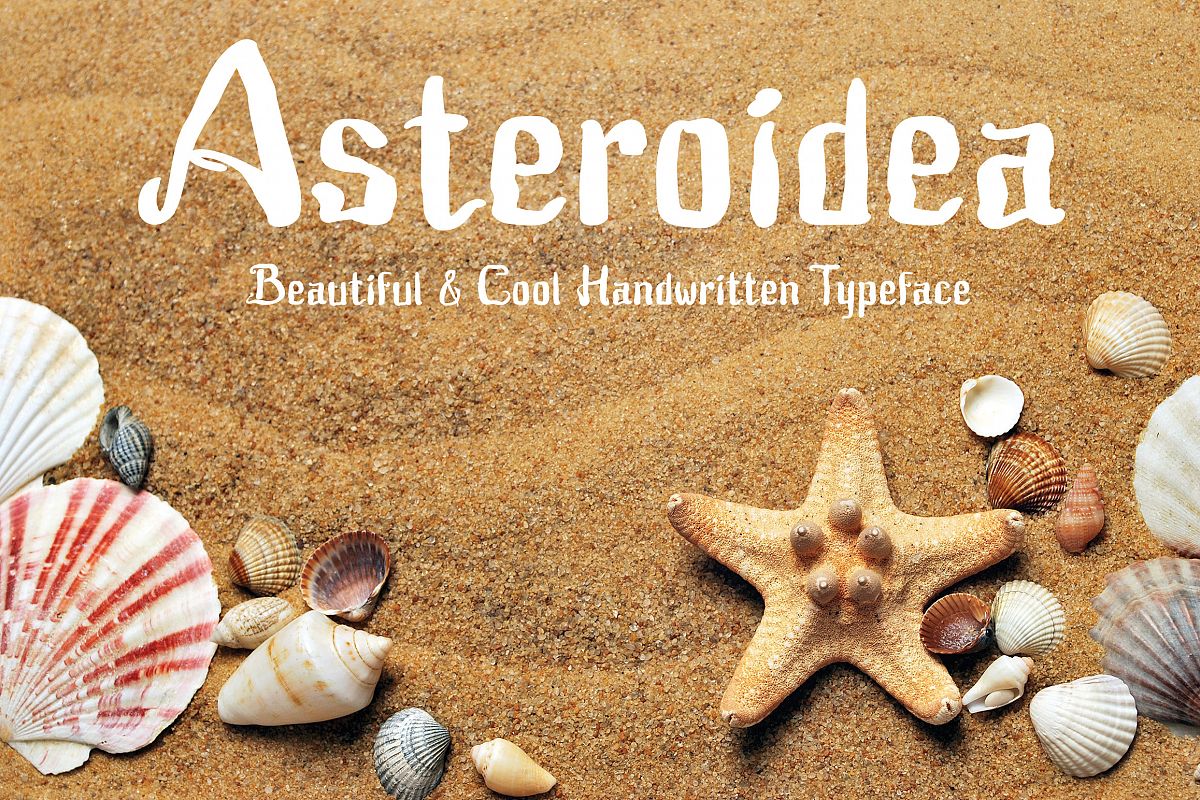
Asteroidea
Say Hello to Asteroidea, the sea star. This is a cool font for fun
theme, and also suitable for old era theme. This font will so nice for
food menu, beverages, chocolate, coffee, wine, funny, humor, comic,
game, old story book, children book, etc.